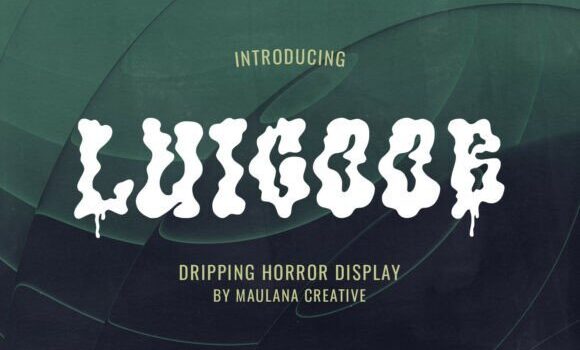
luicoob
Luicoob Font - Featured Image
Luicoob Font – Free Download Introduction to Luicoob Font Introducing Luicoob, a chilling and captivating display font designed to inject an immediate sense of horror and mystery into your projects. 📸 Preview Gallery 6 images 📌 Product Name Luicoob Font